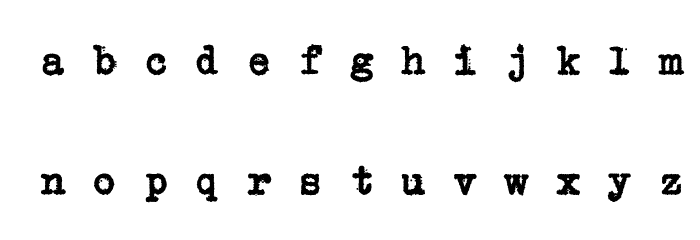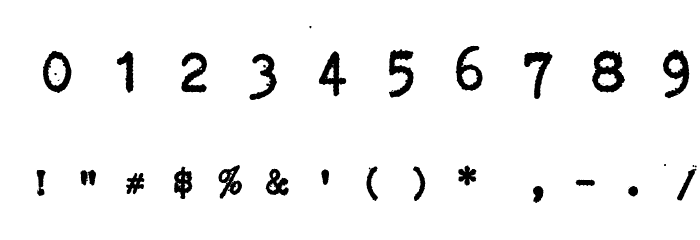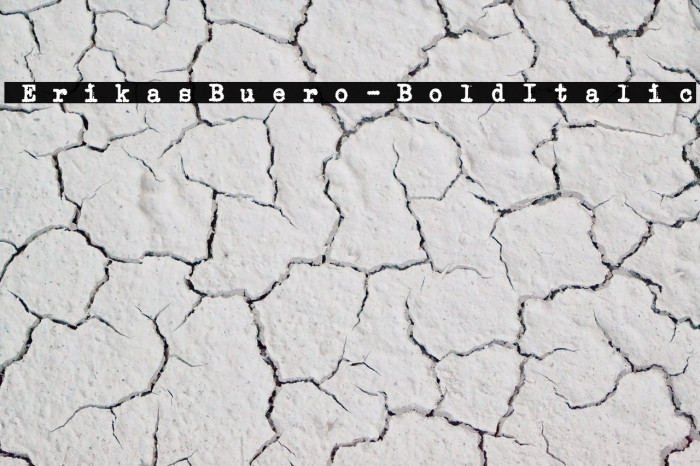
ErikasBuero-BoldItalic Font
This typeface exudes a vintage, typewriter-inspired aesthetic with a bold and italicized style. The characters are slightly irregular, giving them a handcrafted feel, reminiscent of old typewritten documents. The uppercase and lowercase letters maintain a consistent design, with rounded edges and a slightly distressed texture that adds to its nostalgic charm. The numerals and special characters follow the same design principles, ensuring a cohesive look across all text. This font's unique style makes it stand out, offering a blend of retro and artistic flair.
A bold, italicized typewriter-style font with a vintage, handcrafted look.
- Font: ErikasBuero-BoldItalic
- Weight: Bold Italic
- Proposed Projects: Ideal for retro-themed designs, vintage posters, typewriter-style documents, and artistic projects requiring a nostalgic touch.
- Overall Style: Vintage